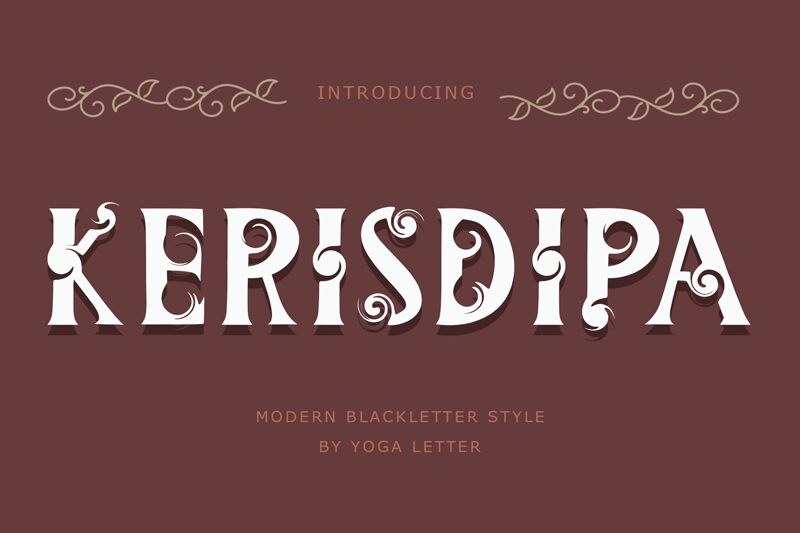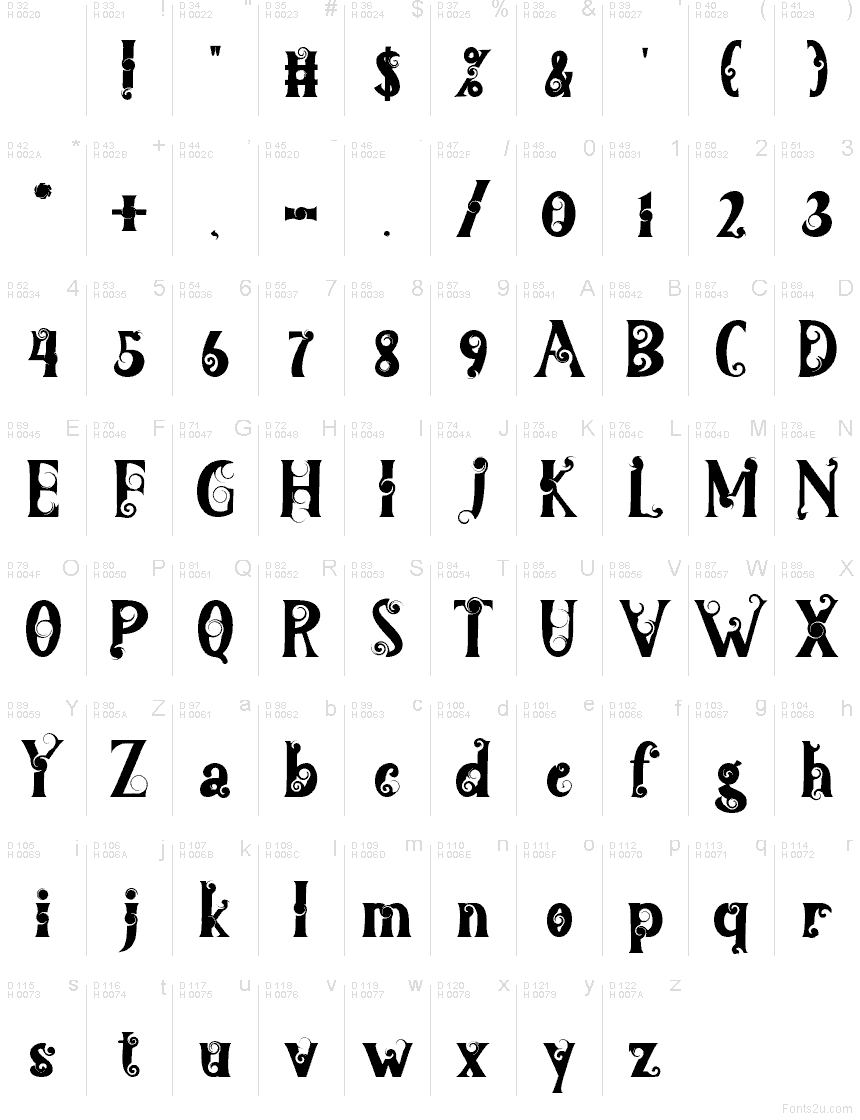
Kerisdipa font by Yoga Letter is a free decorative display typeface with bold, inky curves that twist into whimsical curls. Each letter feels hand-carved and enchanted, with rounded bodies and swirling cutouts that create a playful, slightly mysterious rhythm across the line. The chunky weight keeps it solid and readable, while the spiral details add a sense of magic and storytelling you can almost feel under your fingertips.
Using Kerisdipa, this free font immediately pushes designs toward fantasy, folklore, and quirky gothic moods. It shines on potion labels, fairytale or fantasy book covers, Halloween invitations, mystical logos, tarot or witchy packaging, and theatrical posters. For balance, pair Kerisdipa with a clean, narrow sans serif in smaller sizes so the ornate curls can stay in the spotlight as bold headlines or wordmarks.